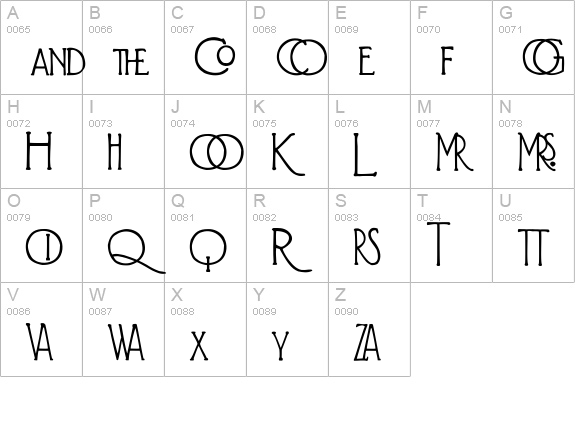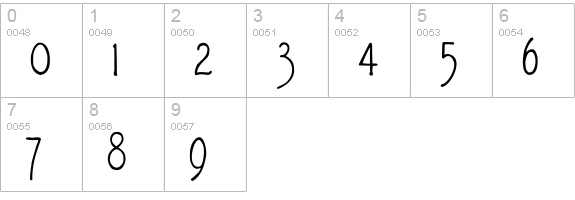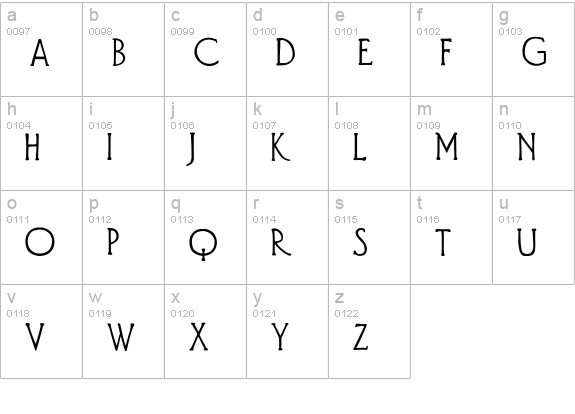
Diehl Deco - Alts Font Details
Diehl Deco - Alts is a stunning display font that exudes elegance and sophistication. Its intricate Art Deco-inspired design features unique letterforms that add a touch of glamour to any project. The alternate characters provide versatility and customization options, allowing you to create truly one-of-a-kind designs. And the best part? Diehl Deco - Alts is available for free download at FontsMarket.com! This means you can elevate your projects with this exquisite font without breaking the bank. Whether you're working on branding, invitations, posters, or any other creative endeavor, Diehl Deco - Alts is sure to make a bold statement and leave a lasting impression. Download it today and let your creativity shine with this exceptional typeface.